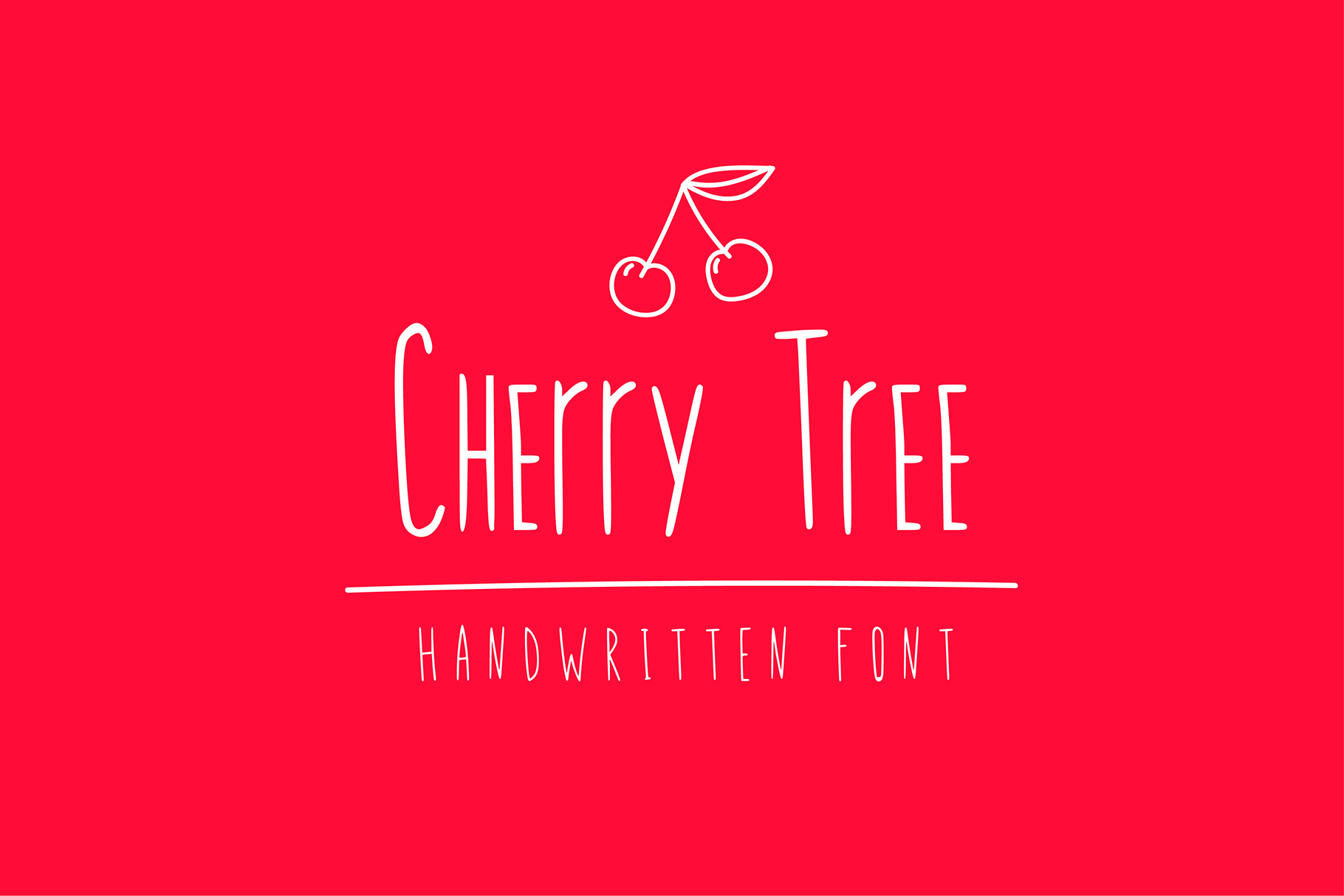
Font Cherry Tree
Hand lettered font - Cherry Tree.
Ideal for posters, greeting cards, invitations, lettering decoration of t-shirts, kids clothes, mugs, etc. Also you can use this font for create commercial - flyers, booklets, banners, certificates, bags, packaging.
Font include: letters, punctuation marks, numerals.